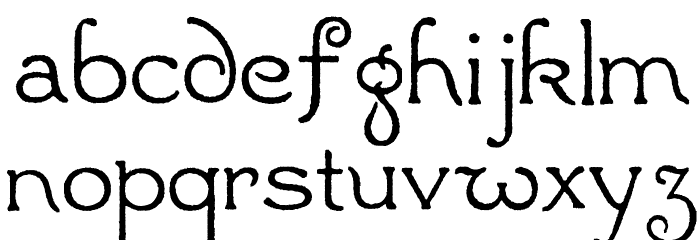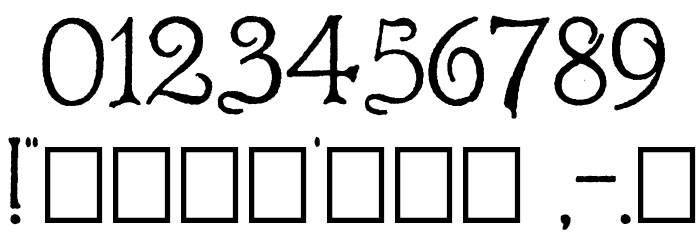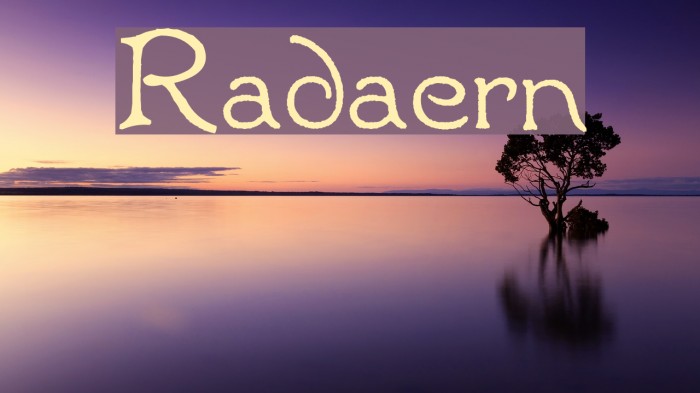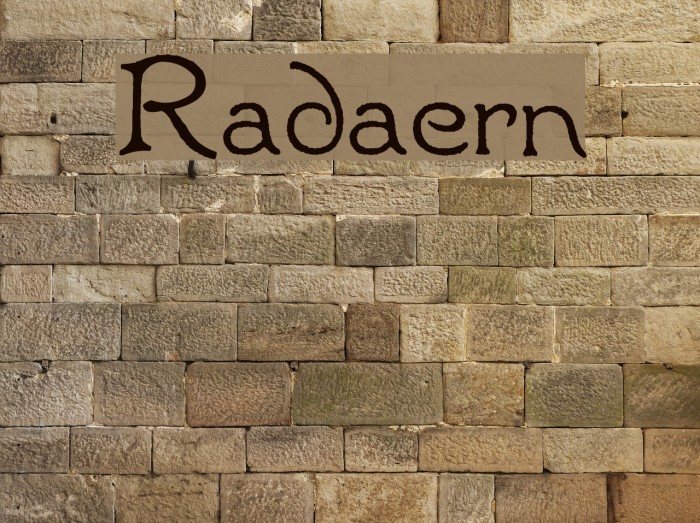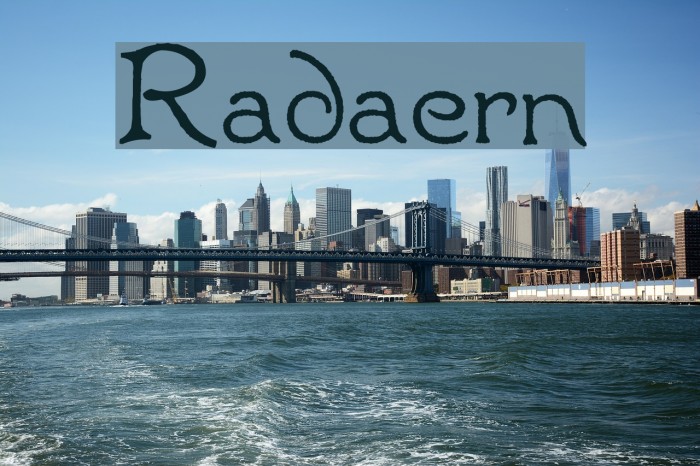
Radaern Font
This font features a whimsical and artistic design, characterized by its playful curves and unique letterforms. The uppercase letters exhibit a decorative flair with intricate loops and swirls, while the lowercase letters maintain a consistent style with a slightly more subdued approach. The numerals are bold and distinct, ensuring readability while maintaining the font's artistic essence. Special characters are creatively designed, adding to the font's overall charm. The font's hand-drawn appearance gives it a personal and organic feel, making it suitable for projects that require a touch of creativity and individuality.
A whimsical and artistic font with playful curves and unique letterforms.
- Font: Radaern
- Proposed Projects: Ideal for greeting cards, invitations, artistic posters, and branding that requires a creative touch.
- Overall Style: Artistic, Whimsical
- Use Case: Headlines, Artistic projects, Branding